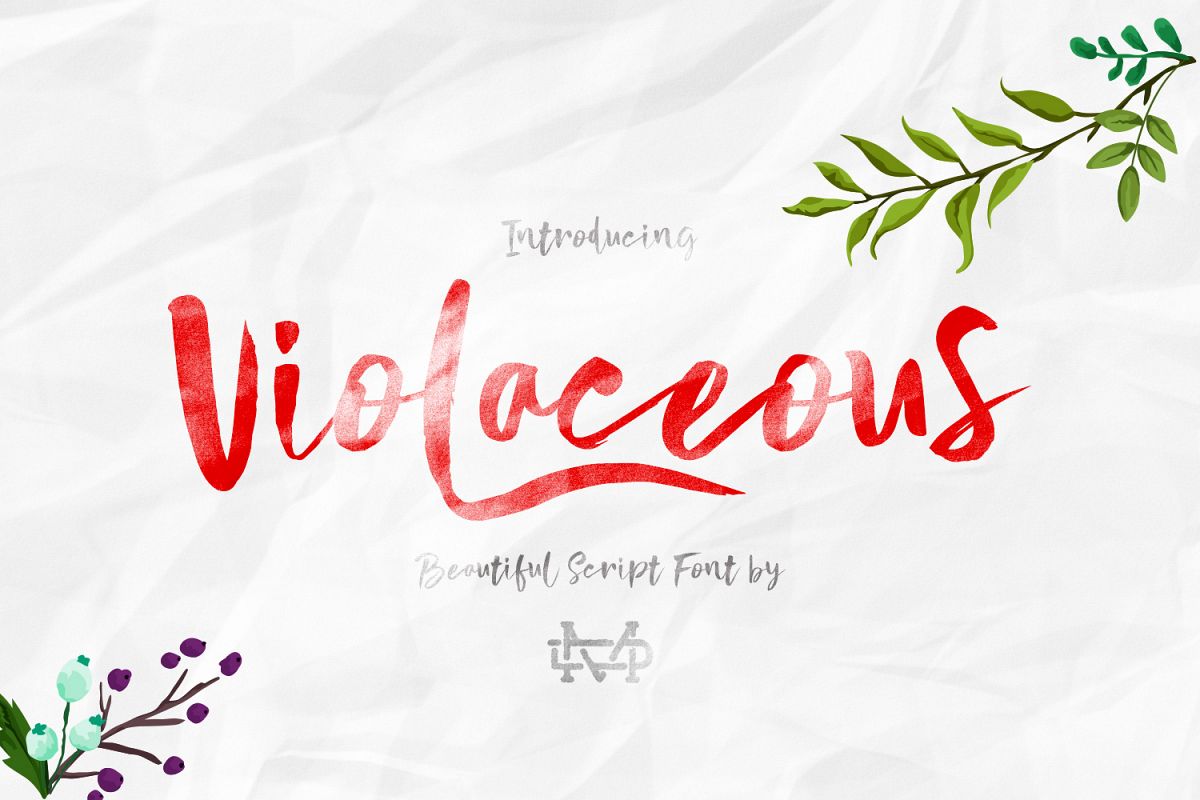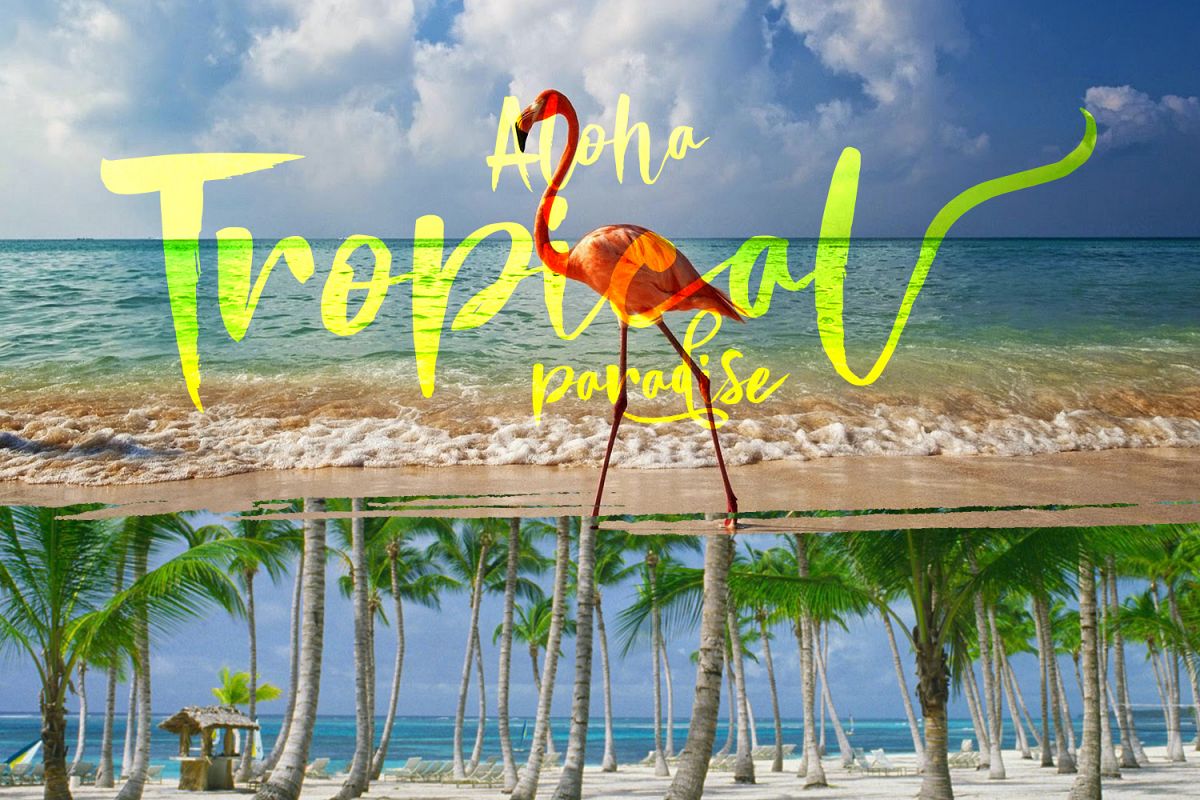
Violaceous - Brush Script
Violaceous
Really excited to introduce Violaceous is a brush script! Violaceous perfect for all your designs project.
• UPPERCASE
• lowercase
• Number & Symbol
• International Glyps
• Alternative lowercase (alt01-alt02-alt03-alt04alt05-alt06-alt07)